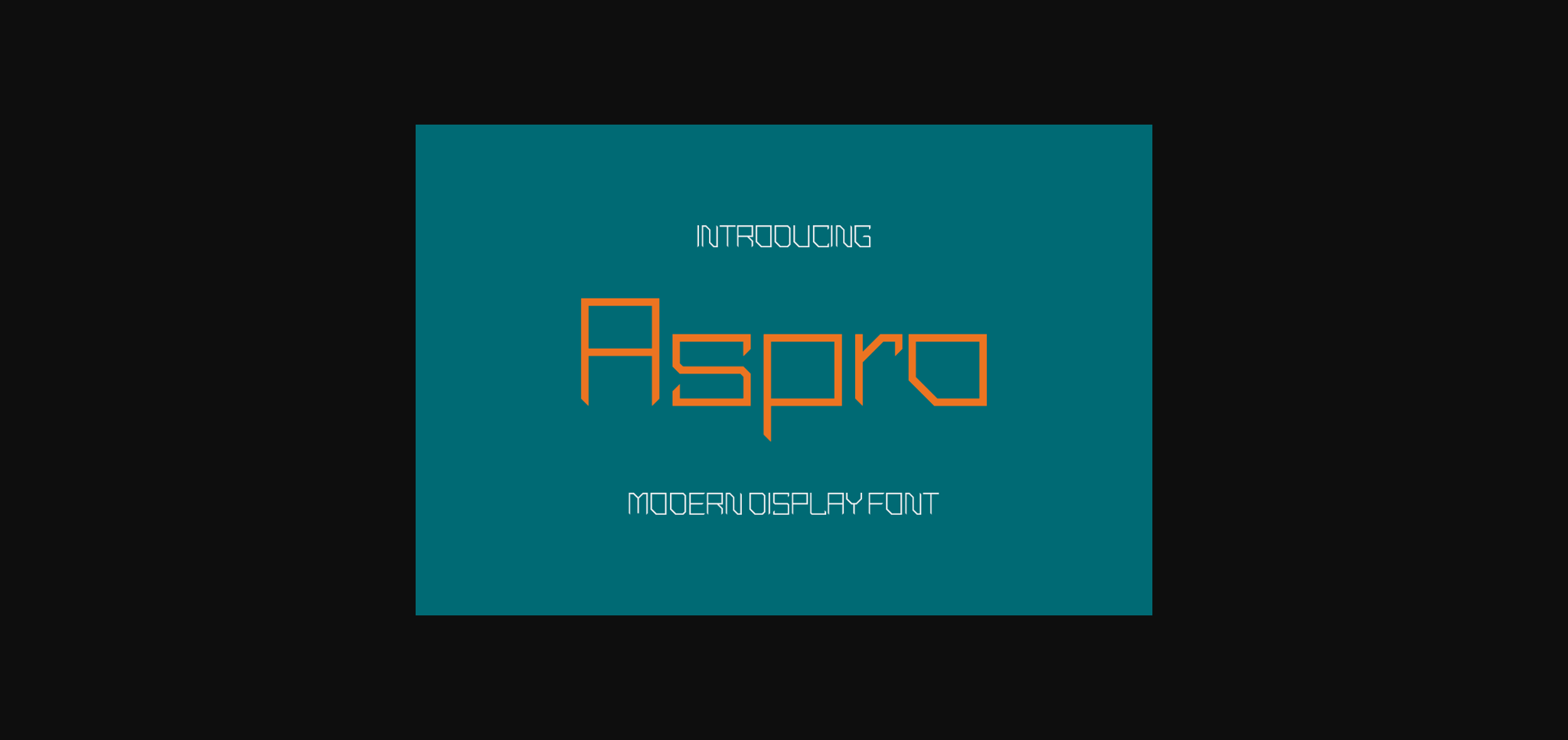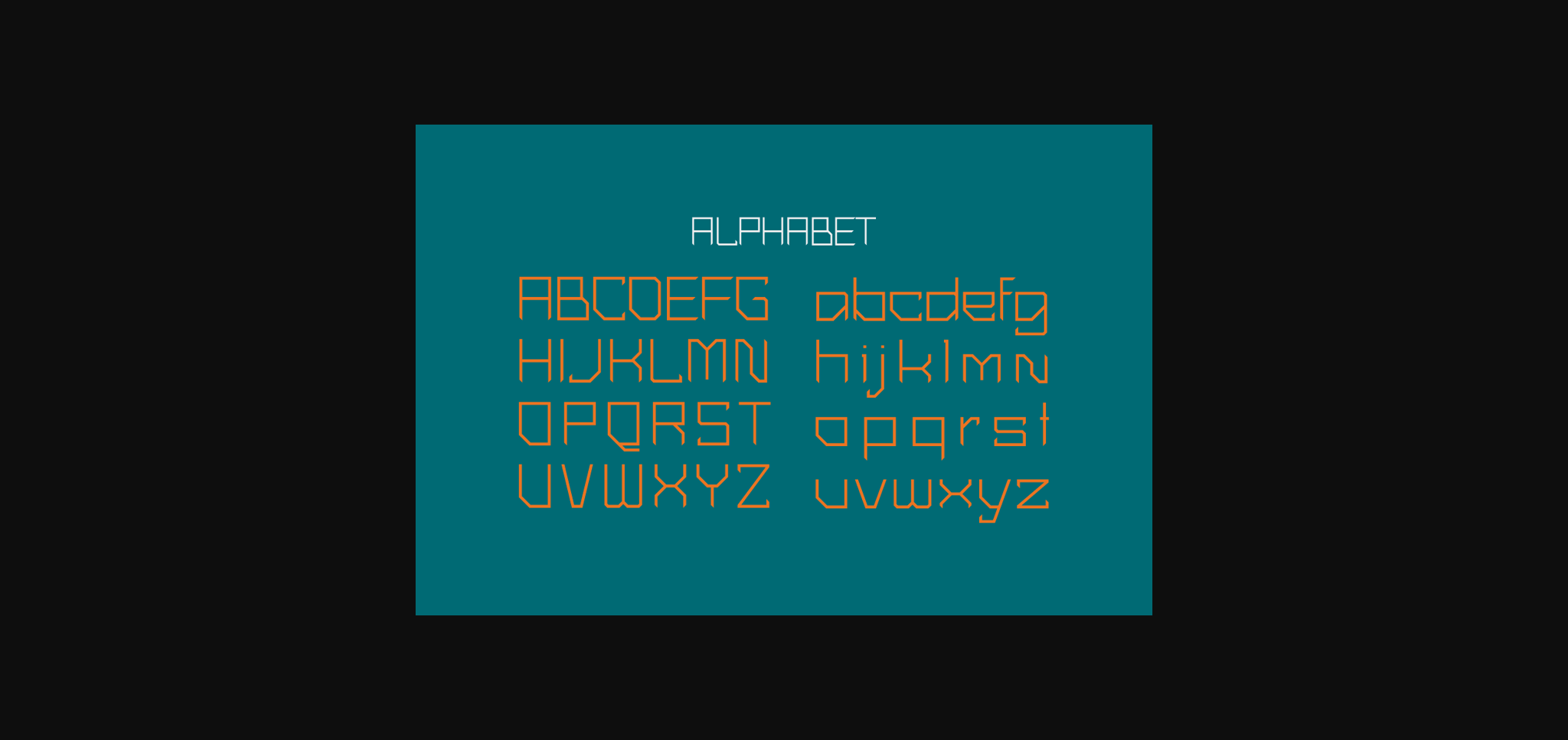
About Aspro Font
Aspro is a bold and authentic sans-serif font with some cool slab accents. The font is suitable for any branding project like logo, t-shirt printing, esports, and many more. It will look outstanding in a wide range of contexts.